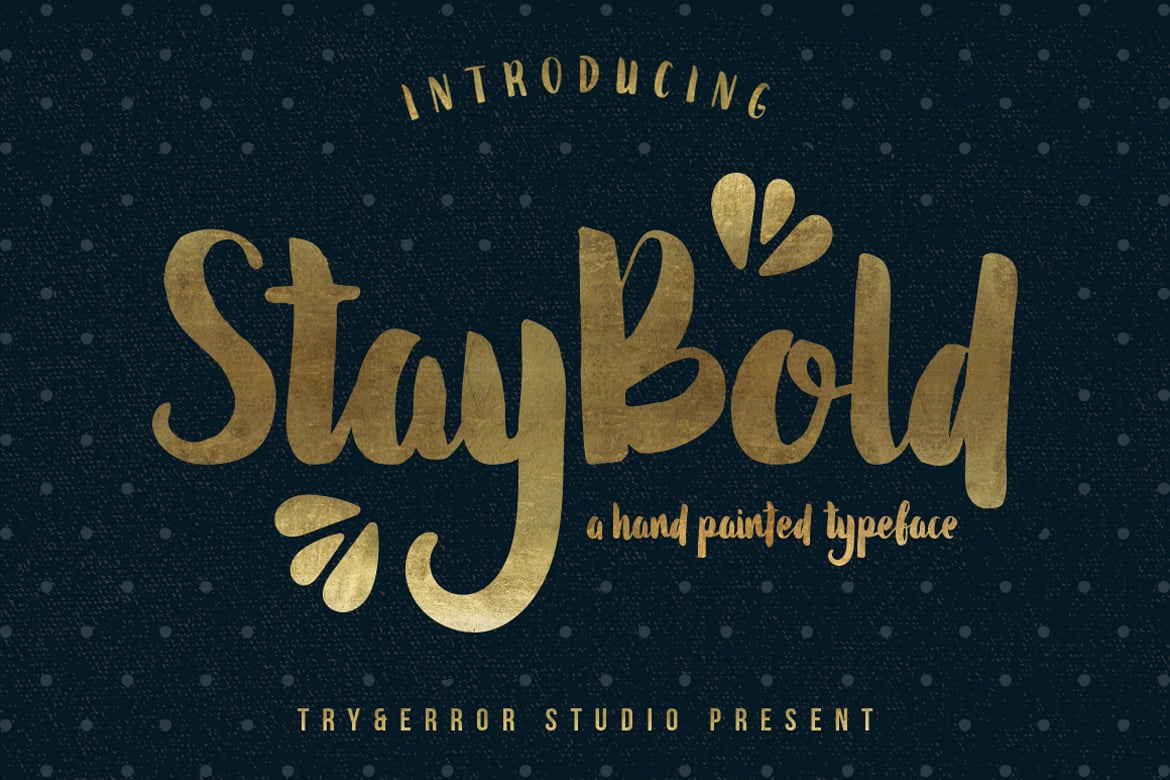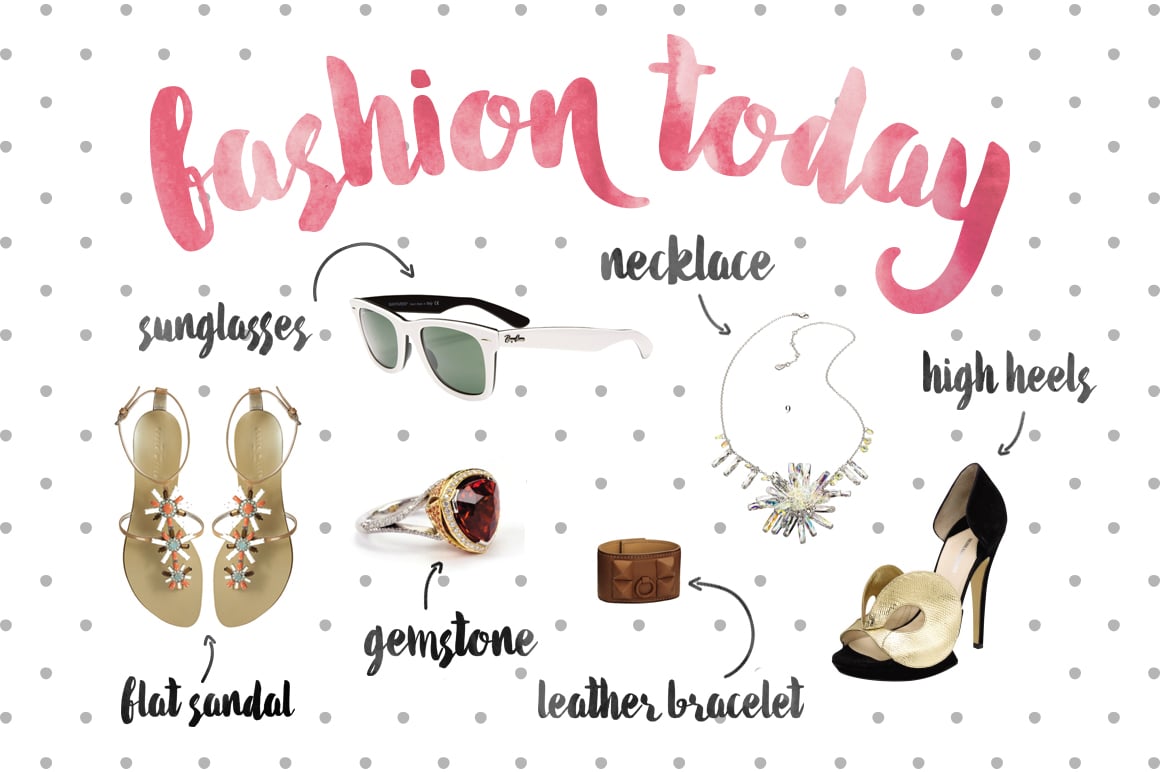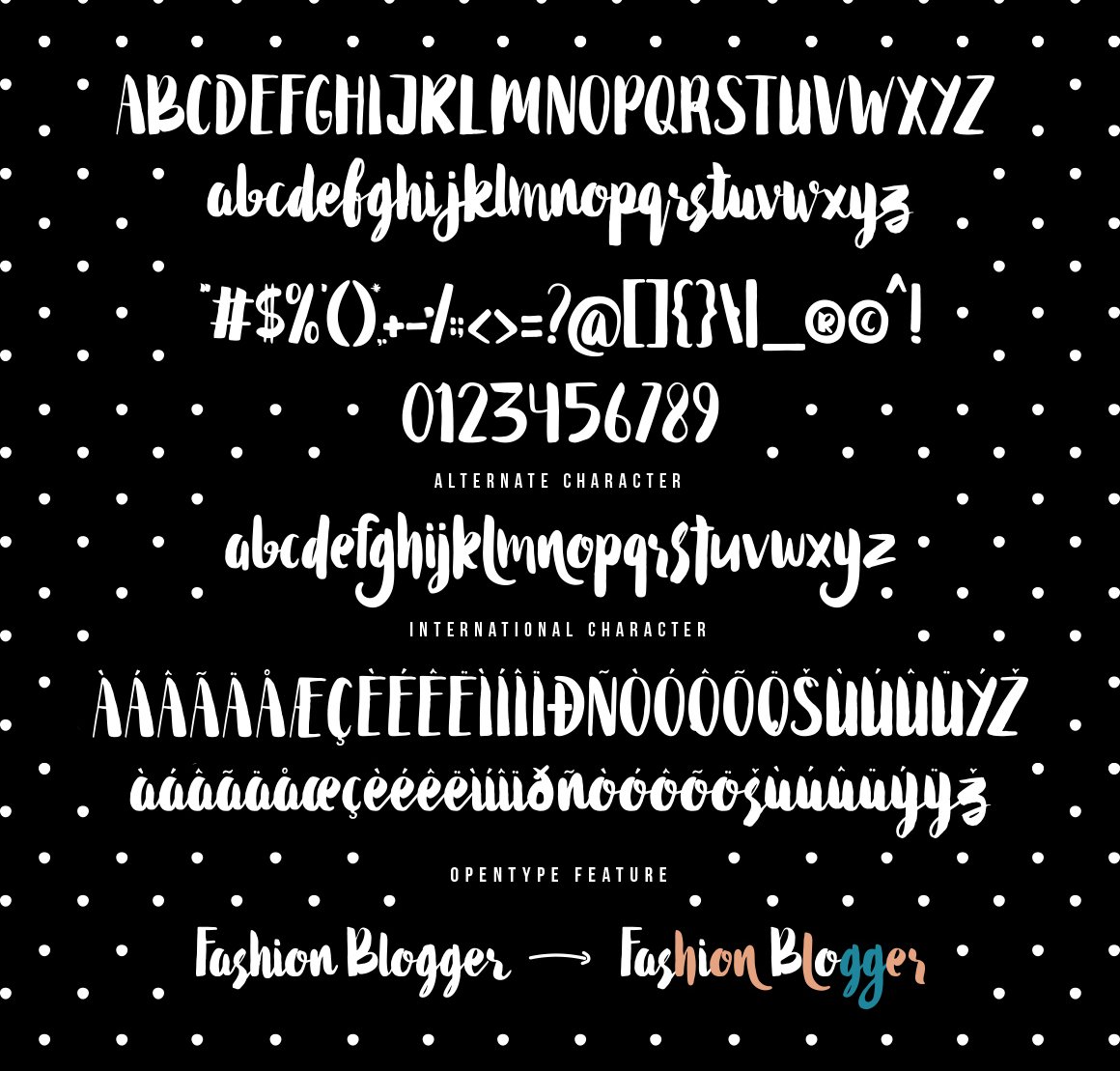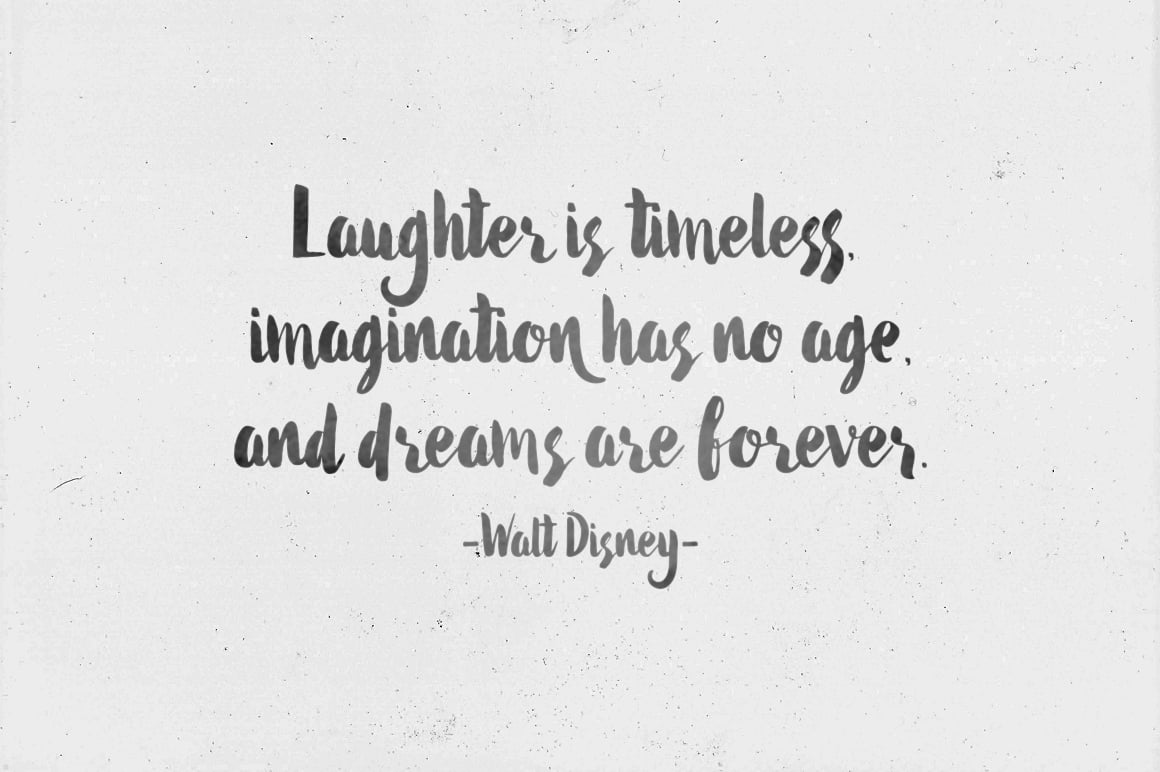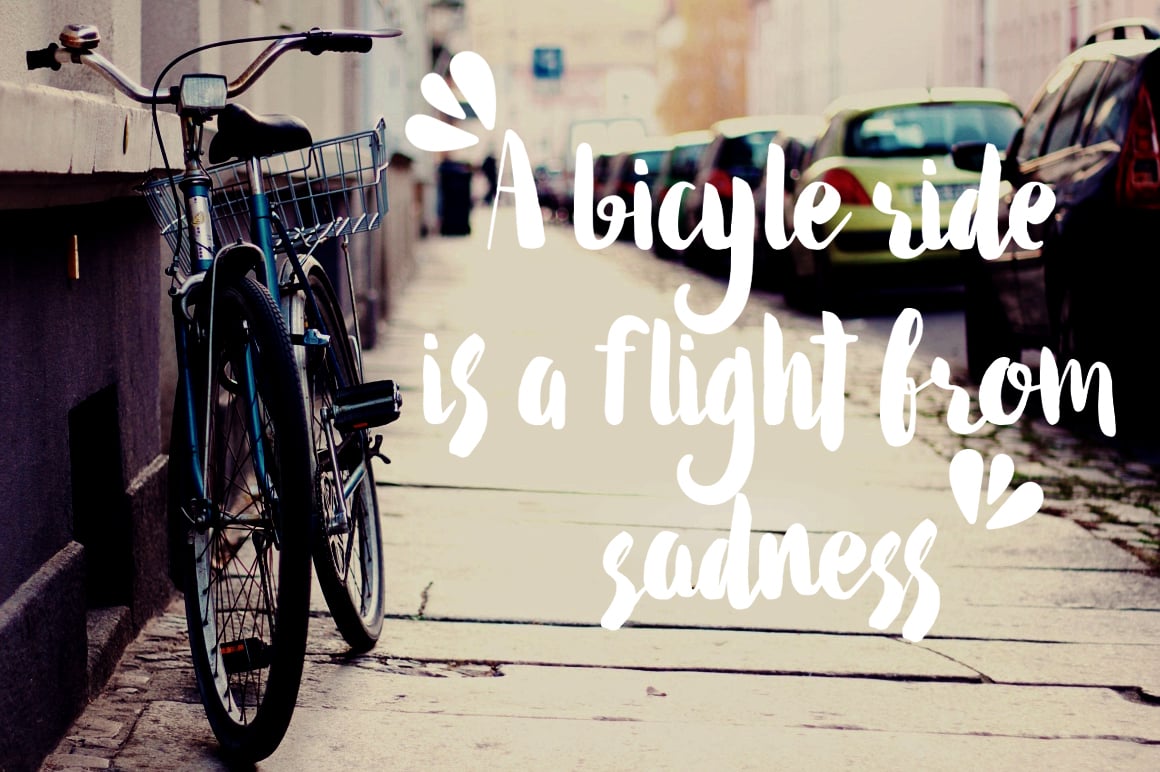
Stay Bold Font
Stay Bold is a hand painted font with a stylish character. This font can help to to good display, can be used for various purposes.such as headlines, logos, wedding invitation, t-shirt, letterhead, signage, labels, news, posters, badges and all of your handcrafted projects presentations.